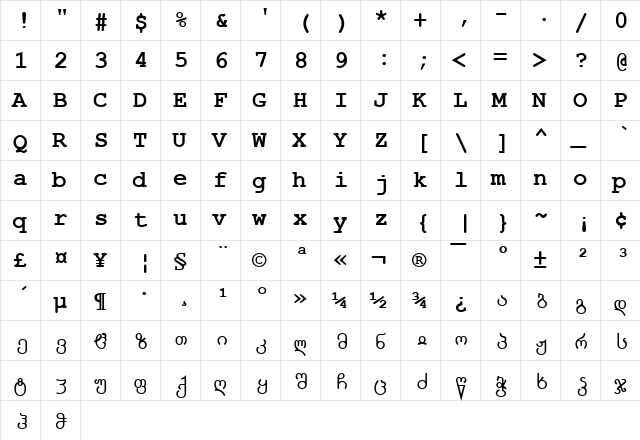
Geo_Courier Bold
Design Context for Geo_Courier Typeface
Geo_Courier uses fixed-width spacing throughout, giving it the structured, systematic character associated with coding environments and technical documentation. Its bold stroke weight gives it real presence on the page.